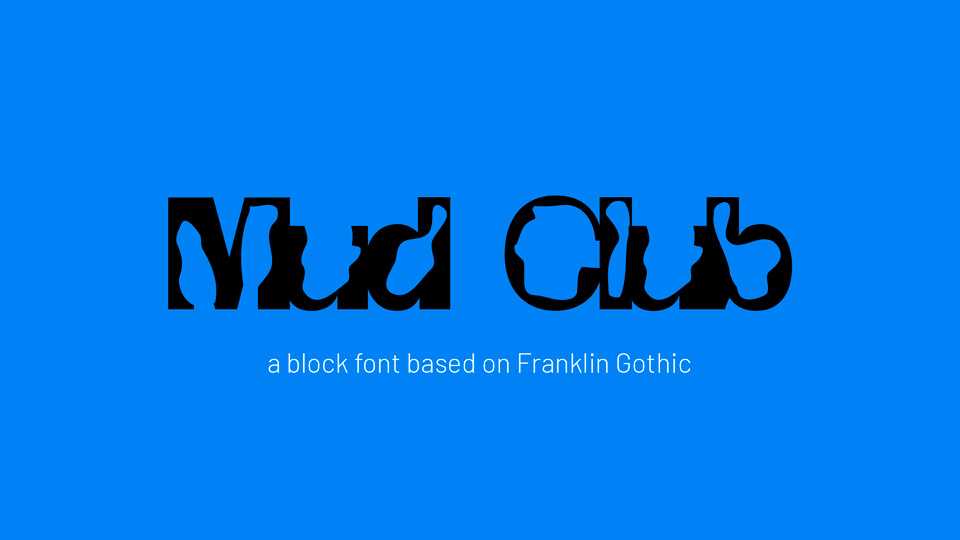
Download Mud Club font, a display typeface in one weight based on the idea of hollowing out Franklin Gothic to create blocks of word shapes. Mud Club is perfect for posters and prints.
Designer: Rory King